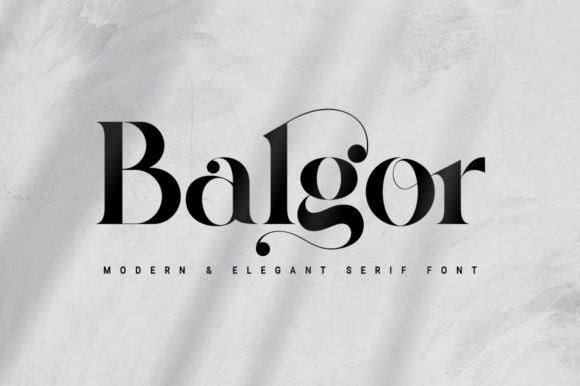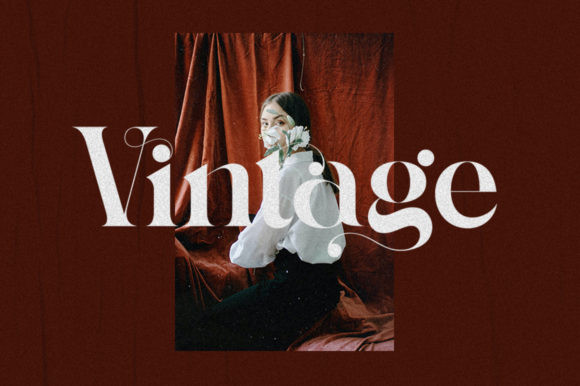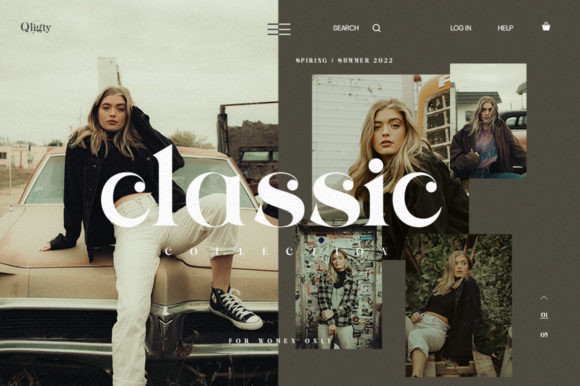
Balgor Font
Balgor is an elegant and modern serif font. It is characterized by smooth curves and is perfect for fashion branding or editorial designs. Add it confidently to your projects, and you will love the results.